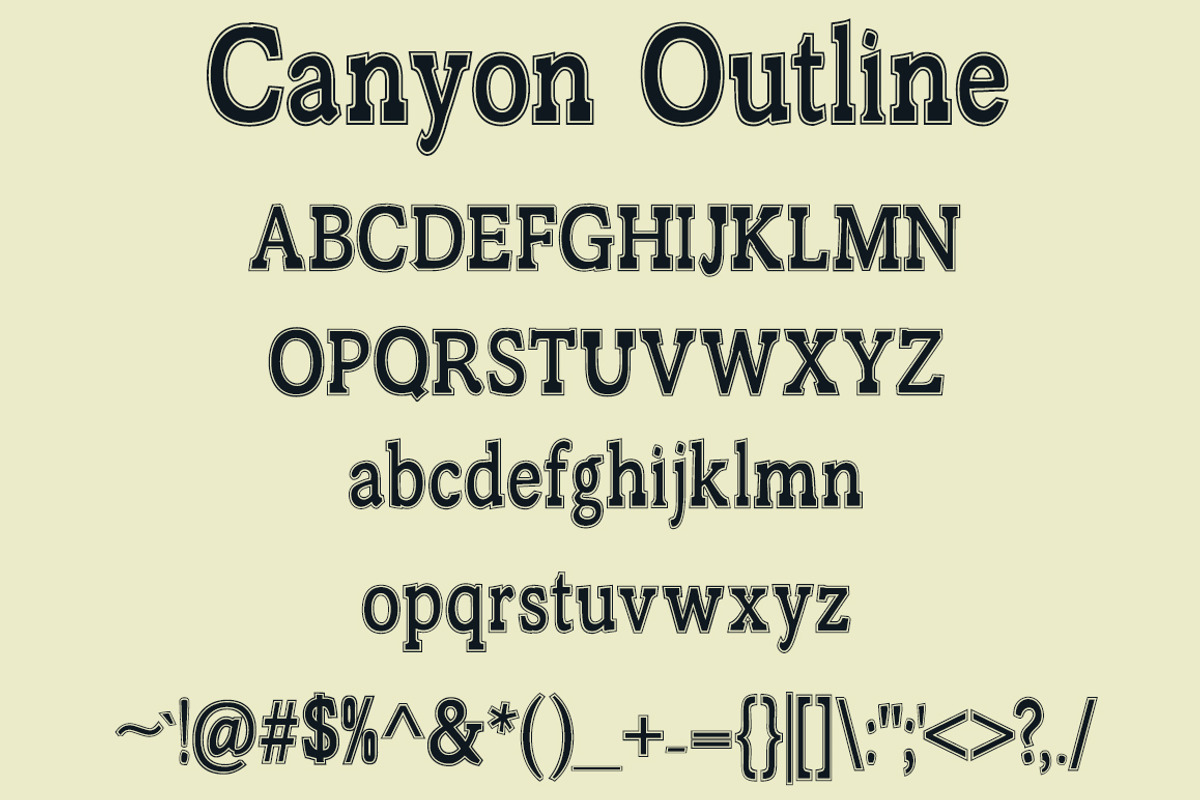
Canyon - Font in Three Styles
Canyon - Font in Three Styles by Blue Line Design is a font selected for branding, posters, packaging, typography.
- Canyon Regular
- Canyon Outline Regular
- Canyon Marquee Regular
Why Canyon - Font in Three Styles is worth a look
Canyon - Font in Three Styles by Blue Line Design fits naturally into Branding, posters, packaging, typography.